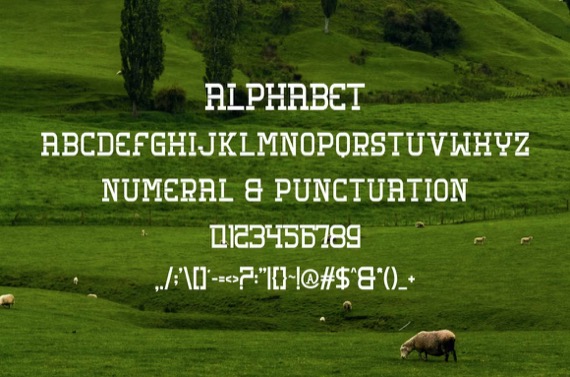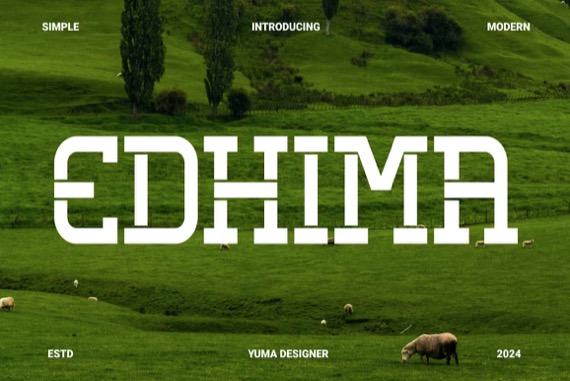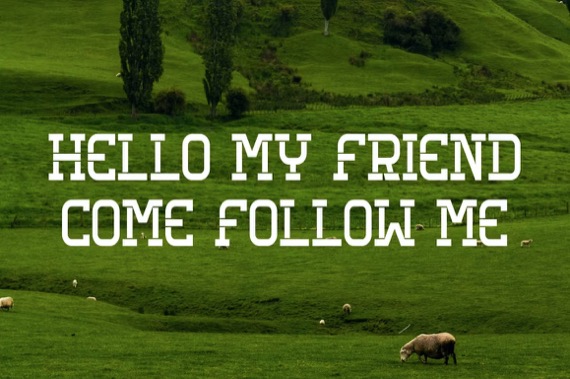
Introducing Edhima Modern Serif font. Edhima is a modern and simple font ideal for displaying titles, logos, branding, magazines, product packaging and invitations. Edhima’s clean lines and gentle curves give any project an extra touch of class
Edhima Slab Serif Font